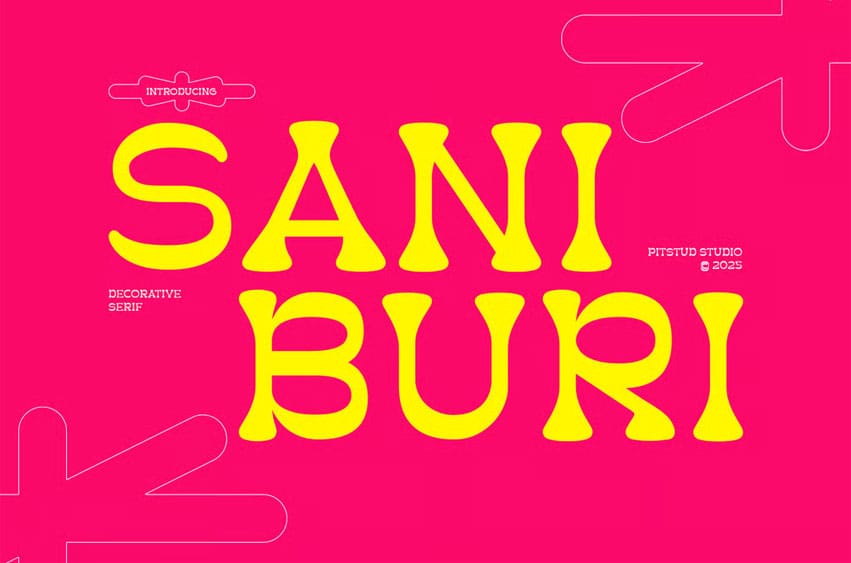
Saniburi Font is a premium summer retro display font designed to bring playful nostalgia to your branding and design projects. Crafted with modern groovy flair, this font offers a sleek, stylish, and professional touch for logos, marketing materials, packaging, and digital applications.
Perfect For Whether you’re working on a 70s-inspired campaign, music festival branding, or vibrant event promotions, SANIBURI will give your design a colorful edge. It’s ideal for use in event posters, summer merchandise, logo designs, and social media graphics.
Font Features:
- Clear and Versatile Design: Offers easy readability with a modern style that stands out in both digital and print mediums.
- Complete Character Set: Uppercase and lowercase characters, numbers, punctuation, and symbols.
- OpenType Features: Access alternates, ligatures, and unique stylistic sets to customize your design.
- Multilingual Support: Includes support for multiple languages, including English, Spanish, French, German, Portuguese.
SANIBURI combines bold curves and psychedelic flair to create a striking visual impact while maintaining clarity. Whether you are designing for fashion brands, beach parties, or retro product packaging, this font adapts to your needs and enhances the visual appeal of your design.
Perfect For:
- Event Promotions: Bring life to summer festivals and beachside gatherings.
- Retro Branding: Capture the essence of the groovy 70s in modern packaging.
- Creative Posters: Stand out with funky, high-energy visual appeal.
- Merchandise Design: From t-shirts to tote bags, this font shines.
- Digital Graphics: Elevate your social media and YouTube thumbnails with vintage charm.